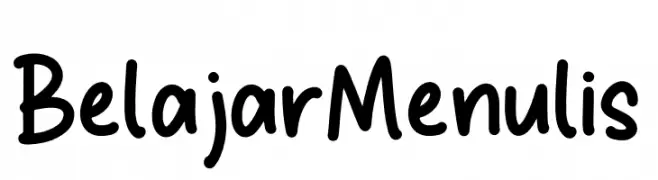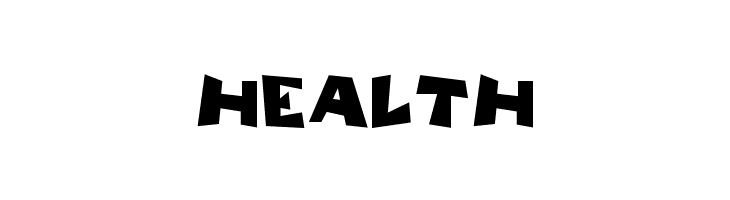
A playful, bold outline font with a hand-drawn aesthetic.
A whimsical, decorative font with intricate swirls and playful loops.
An italic font with Greek influences, offering medium contrast and a classical style.
A playful, casual handwritten font with a smooth, flowing style.
Ornamental font with diverse fleur-de-lys motifs.
A bold, three-dimensional font with a modern, dynamic style.
A playful, bold, handwritten font with a whimsical and inviting style.
An elegant script font with flowing, interconnected characters and a sophisticated style.
A bold, rugged font with a handcrafted, vintage appearance.
A modern, semi-bold typeface with clean lines and excellent legibility.
A rustic, distressed font with a handcrafted, vintage feel.
A classic serif font with elegant strokes and balanced readability.
Book and reading-themed decorative dingbat font.
A bold, expressive brush-style font with dynamic strokes.
A bold, rounded, and playful font with smooth curves and thick strokes.
A bold, high-contrast serif font with dramatic strokes and elegant curves.
A bold, italicized font with a tall, narrow, and high-contrast design.
A playful, hand-drawn font with dynamic, irregular strokes.
A playful, hand-drawn font with bold, rounded letterforms.
A sleek, light, and italicized font with a modern and elegant style.
A playful and flowing script font with smooth, connected letters.
A playful, bold outline font with a cartoonish and dynamic style.